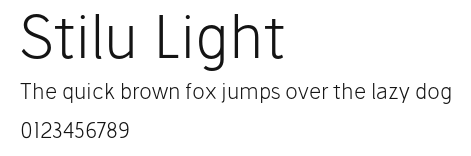
• Designer: Genilson Lima Santos
About Stilu Light.otf
Stilu Light.otf is a modern, elegant sans-serif font designed for ultimate readability and visual harmony. Perfect for branding, headlines, web design, and print materials.